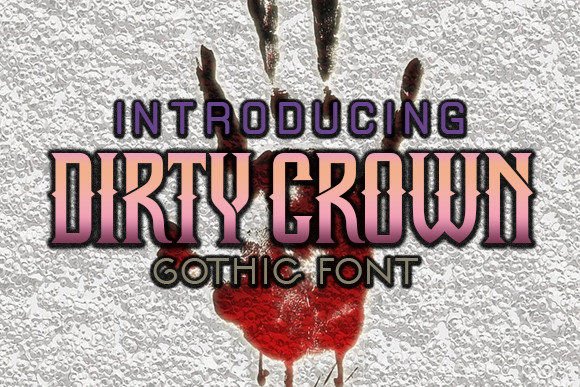
Dirty Crown Font: The Ultimate Gothic Black Letter Typeface for Creative Designs
In the realm of typography, few fonts have managed to capture the essence of gothic elegance and raw power as effectively as the Dirty Crown font. This awesome gothic black letter typeface has been making waves in the design community, and for good reason. Its unique blend of medieval flair and modern edge makes it an ideal choice for a wide range of creative projects. In this article, we’ll delve into the world of Dirty Crown font, exploring its features, uses, and benefits, as well as providing tips on how to make the most of this versatile typeface.
What Makes Dirty Crown Font So Special?
Dirty Crown font is a gothic black letter typeface that boasts a distinctive, bold aesthetic. Its intricate lettering and sharp lines evoke a sense of mystery and power, making it perfect for designs that require a touch of drama and sophistication. Here are some key features that set Dirty Crown font apart:
- Unique letterforms: Each letter in the Dirty Crown font has been carefully crafted to create a sense of continuity and flow, making it ideal for use in titles, headings, and short paragraphs.
- Bold and striking: With its thick lines and dramatic flair, Dirty Crown font is sure to grab attention and make a lasting impression.
- Highly versatile: This font can be used in a wide range of creative projects, from t-shirts and posters to banners and digital graphics.
- Easily readable: Despite its bold and intricate design, Dirty Crown font remains highly readable, even at smaller sizes.
How to Use Dirty Crown Font in Your Designs
Dirty Crown font is an incredibly versatile typeface that can be used in a variety of creative projects. Here are some ideas to get you started:
- T-shirts and apparel: Add a touch of gothic elegance to your t-shirt designs with Dirty Crown font. Its bold, eye-catching aesthetic is sure to turn heads.
- Posters and flyers: Use Dirty Crown font to create striking posters and flyers that grab attention and convey a sense of drama and urgency.
- Banners and signage: With its bold, highly readable design, Dirty Crown font is an excellent choice for banners and signage.
- Digital graphics: Add a touch of gothic sophistication to your digital graphics, such as social media posts and website headers, with Dirty Crown font.
Tips for Getting the Most Out of Dirty Crown Font
To make the most of Dirty Crown font, here are some design tips to keep in mind:
- Use it sparingly: While Dirty Crown font is bold and eye-catching, it can quickly become overwhelming if overused. Use it sparingly to create emphasis and add visual interest.
- Pair it with contrasting fonts: Pair Dirty Crown font with contrasting fonts, such as clean sans-serif fonts, to create visual interest and add depth to your designs.
- Experiment with colors: Don’t be afraid to experiment with different colors and textures to add an extra layer of depth and interest to your designs.
- Pay attention to spacing: Make sure to pay attention to spacing and kerning when using Dirty Crown font. Its intricate design can quickly become cluttered if not given enough breathing room.
The Benefits of Using Dirty Crown Font
So why choose Dirty Crown font for your creative projects? Here are just a few benefits of using this versatile typeface:
- Instant recognition: With its bold, eye-catching design, Dirty Crown font is sure to grab attention and make a lasting impression.
- Highly versatile: This font can be used in a wide range of creative projects, from t-shirts and posters to banners and digital graphics.
- Easy to read: Despite its bold and intricate design, Dirty Crown font remains highly readable, even at smaller sizes.
- Unique aesthetic: Dirty Crown font boasts a unique, distinctive aesthetic that’s sure to set your designs apart from the crowd.
In conclusion, Dirty Crown font is an awesome gothic black letter typeface that’s perfect for creative designers looking to add a touch of drama and sophistication to their projects. With its unique letterforms, bold aesthetic, and highly readable design, this font is sure to grab attention and make a lasting impression. Whether you’re designing t-shirts, posters, banners, or digital graphics, Dirty Crown font is an excellent choice. So why wait? Download Dirty Crown font today and start creating stunning designs that are sure to turn heads!